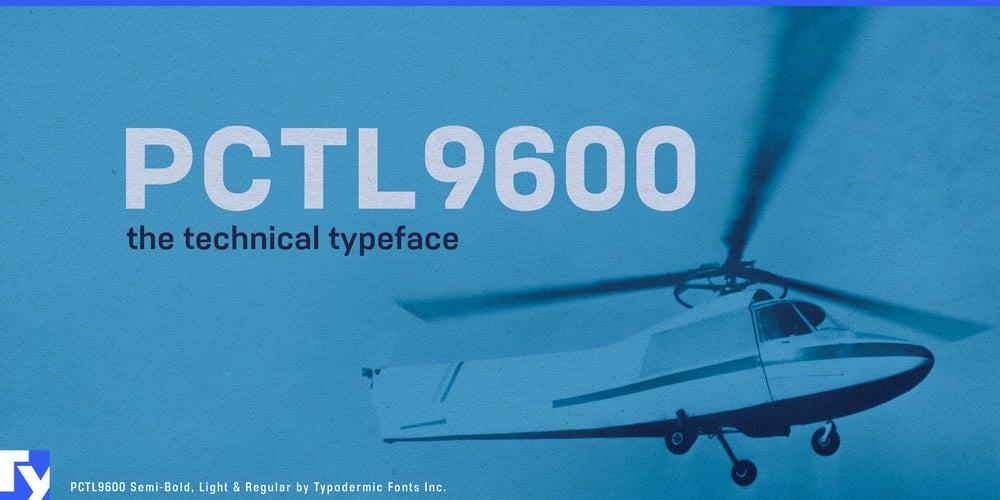
Pctl9600 Font Family was designed by Ray Larabie and published by Typodermic. Pctl9600 contains 12 styles and family package options. PCTL9600 is the epitome of technical precision in typeface design. This sans-serif font family doesn’t just communicate—it computes, calibrates, and delivers with unerring accuracy. Stripped of superfluous embellishments, PCTL9600 presents a clean, efficient aesthetic that speaks the language of modern technology without resorting to dated industrial clichés.At its core, PCTL9600 is an exercise in typographic optimization. Its six meticulously crafted weights, each with a corresponding italic, form a robust system capable of handling any informational hierarchy. From the whisper-thin lines of its lightest cut to the commanding presence of its boldest iteration, PCTL9600 maintains its technical integrity across the spectrum. This typeface excels in environments where clarity and functionality are paramount. Imagine it powering through complex user interfaces, rendering data visualizations with crystal clarity, or lending authority to technical documentation. In the realm of editorial design, PCTL9600 transforms dense information into digestible content, making it an invaluable asset for scientific journals and tech publications alike.In an era where information knows no borders, PCTL9600 stands ready to transmit your message across a vast linguistic landscape. Its character set is a marvel of engineering, encompassing most Latin-based European languages, Vietnamese, Greek, and an extensive range of Cyrillic-based writing systems. This font doesn’t just speak tech—it’s fluent in the global language of innovation. For designers seeking to push the boundaries of technical aesthetics, PCTL9600’s sibling, PCTL4800, introduces an intriguing corner index notch—a subtle nod to the world of hardware interfaces. Together, these typefaces form a comprehensive toolkit for visual communication in the digital age.Integrate PCTL9600 into your design workflow and watch as your projects take on a new dimension of technical sophistication. This isn’t just a font—it’s a precision instrument for the modern designer. Deploy PCTL9600 and elevate your visual communication to the cutting edge of typography.